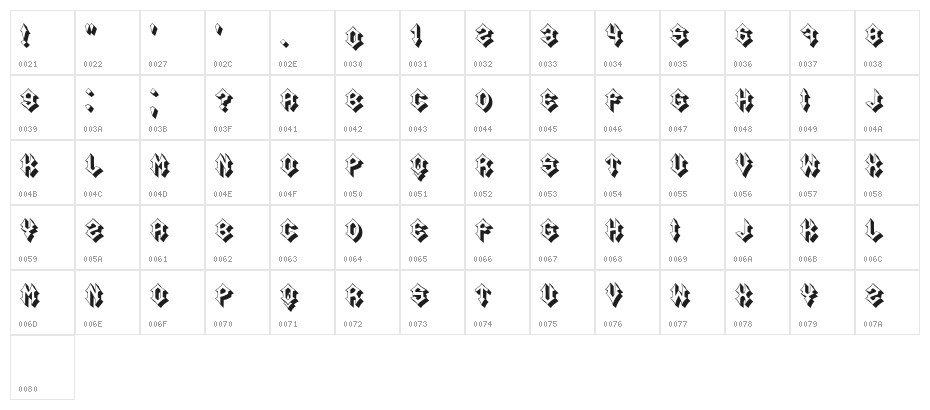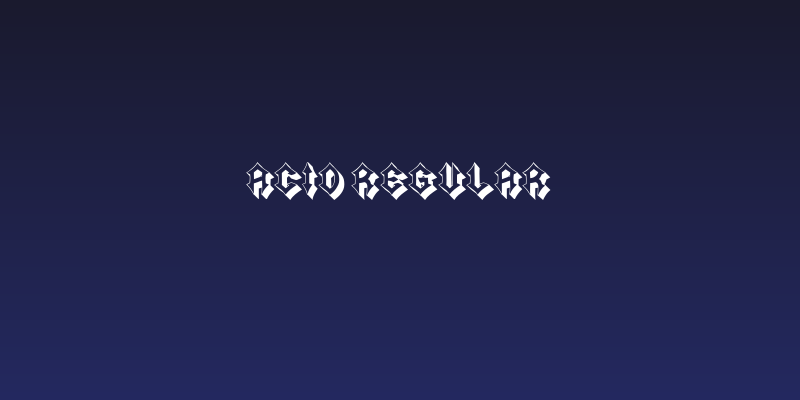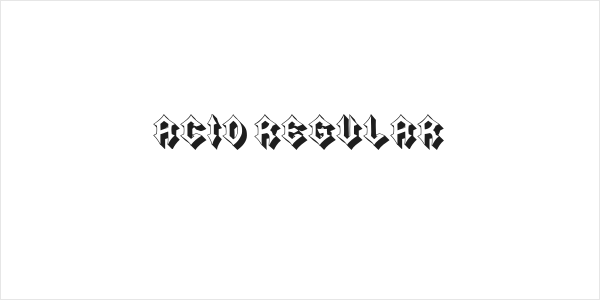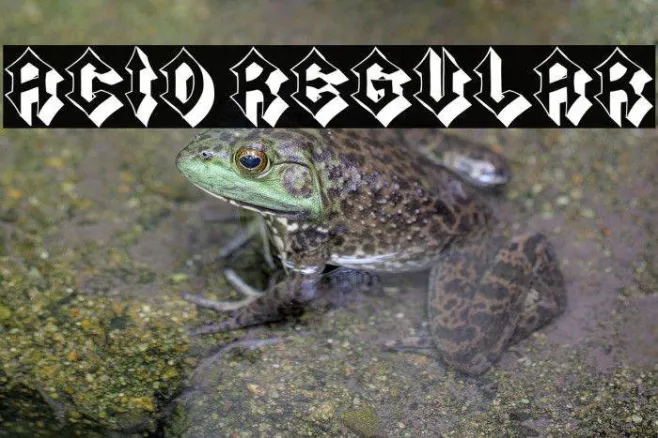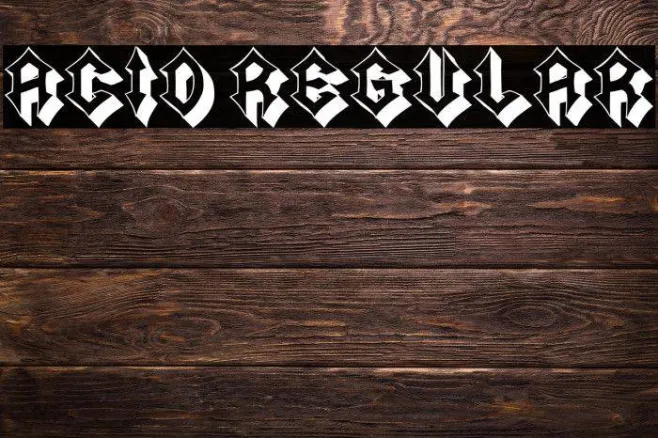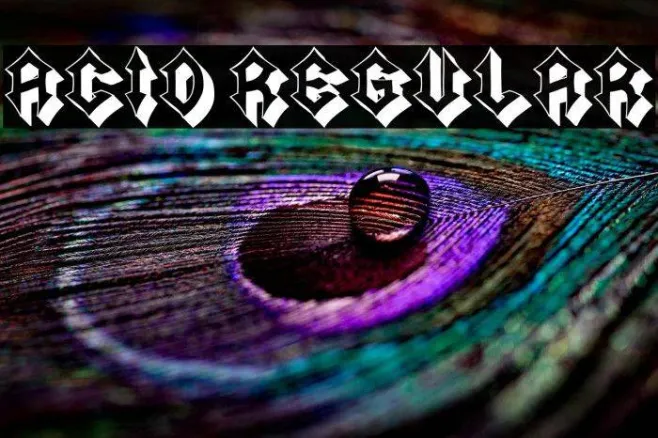
Acid Regular Font
Acid Regular Description
This font features a bold and striking design with a strong blackletter influence. The characters are angular and sharp, with a distinct three-dimensional effect that gives them a shadowed appearance. The uppercase and lowercase letters maintain a consistent style, characterized by pointed edges and a gothic aesthetic. The numerals and special characters follow the same design principles, ensuring uniformity across the typeface. This font's dramatic style makes it ideal for projects that require a bold and eye-catching display.
| Proposed Projects | Ideal for album covers, posters, logos, and any design needing a dramatic and bold statement. |